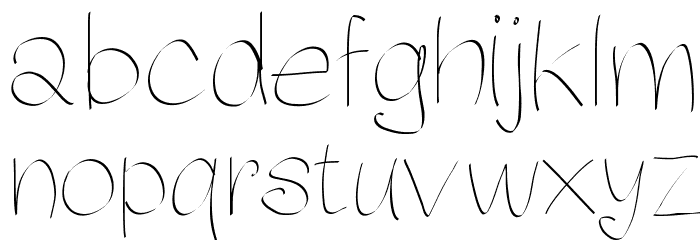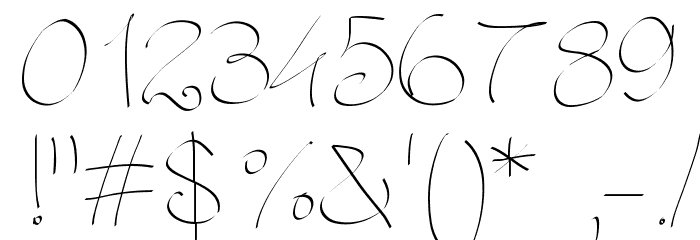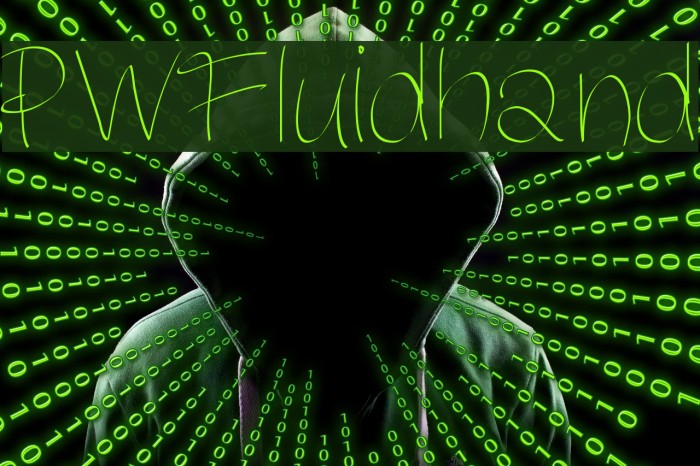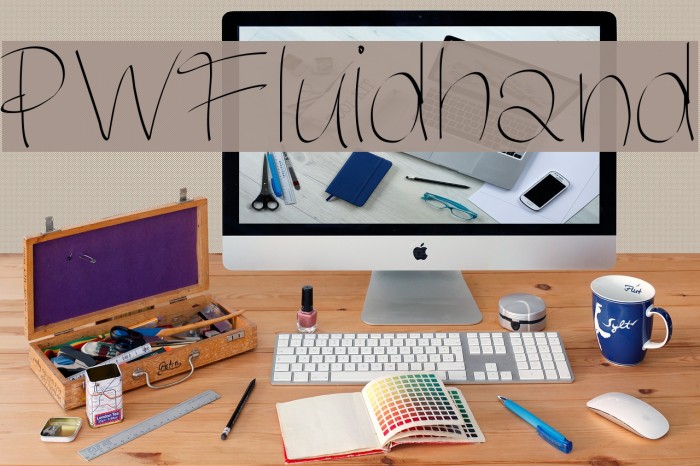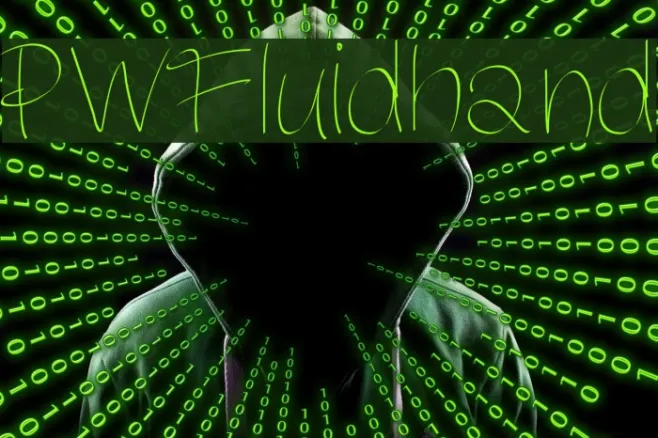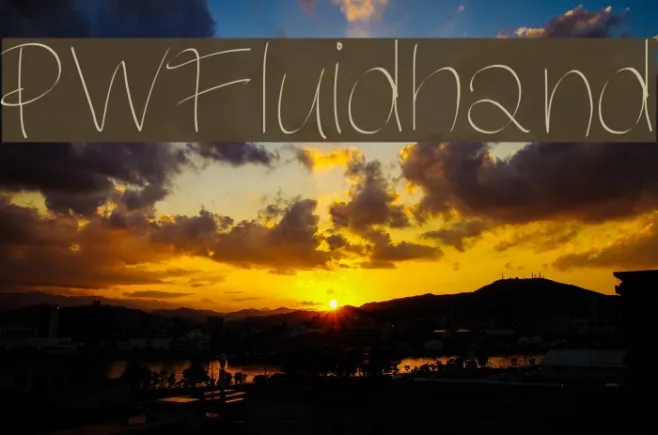
PWFluidhand Font
This font exhibits a fluid, handwritten style that combines elegance with a casual flair. The letters are characterized by smooth, flowing lines and a slight slant, giving them a dynamic and lively appearance. The uppercase letters are distinct with a playful loop and curve, while the lowercase letters maintain a consistent flow, enhancing readability. The numerals and special characters complement the overall style, maintaining the same fluidity and grace. This font is ideal for projects that require a personal touch, such as invitations, greeting cards, or branding materials that aim to convey warmth and approachability.
A fluid, handwritten font with elegant, flowing lines and a casual flair.
- Proposed Projects: Ideal for invitations, greeting cards, personal branding, and creative projects requiring a personal touch.
- Use Case: Headlines, Logos, Invitations